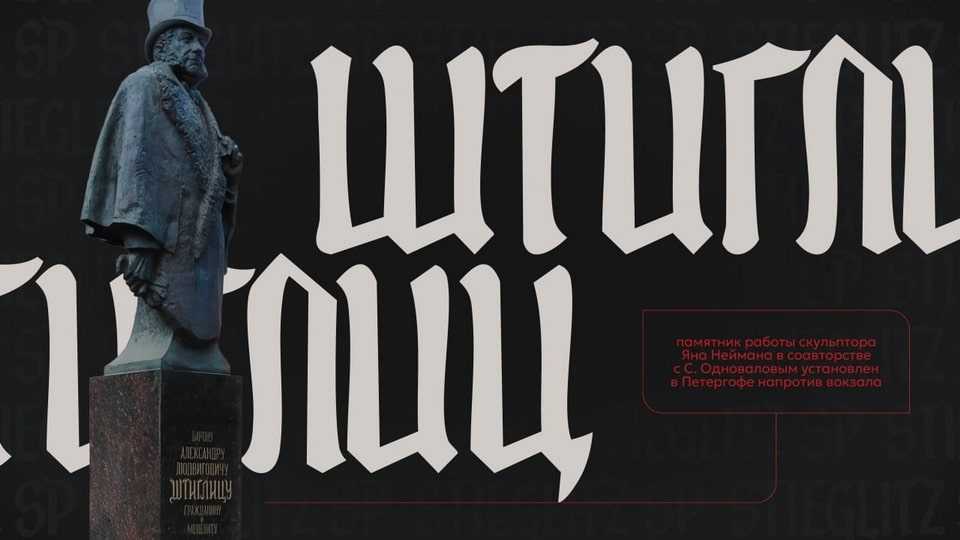
Download Stieglitz SP font, a narrow display typeface with a gothic spirit and calligraphic grace, inspired by the lettering on the monument to Baron Alexander Stieglitz, created by sculptor Jan Neumann.
Designer: Sasha Pavljenko